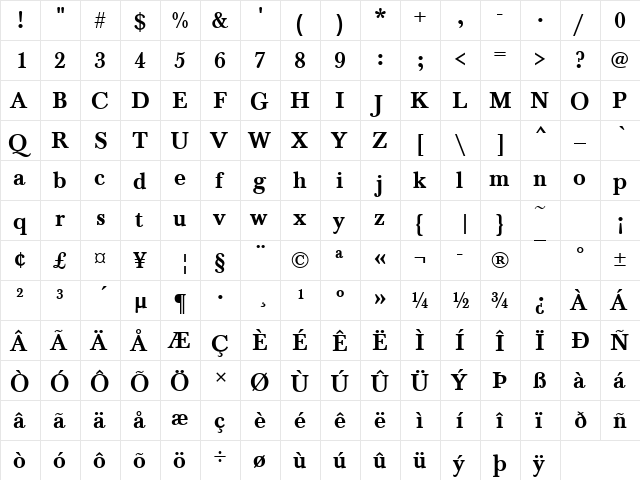
Baskerville Becker Med Regular
Design Context for Baskerville Becker Med Typeface
Baskerville Becker Med offers clean, dependable letterforms without strong stylistic allegiance, making it a practical choice for designers who need flexibility.